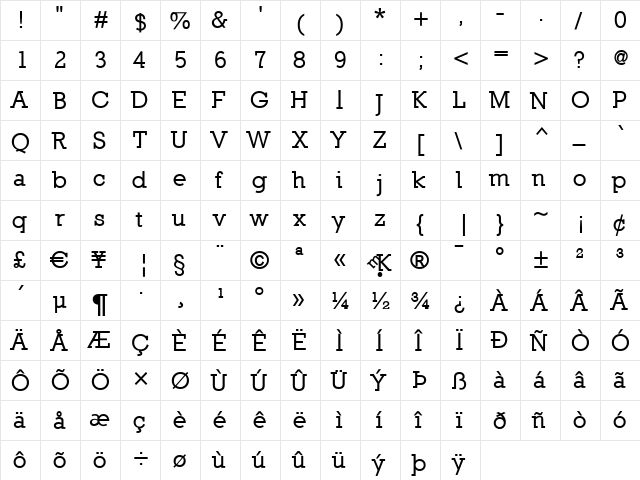
Nilland-ExtraBold Regular
Design Context for Nilland-ExtraBold Typeface
Nilland-ExtraBold takes a measured approach to typography — its balanced proportions and neutral character make it a reliable workhorse for both digital and print work. The heavy weight commands attention and anchors typographic hierarchies.